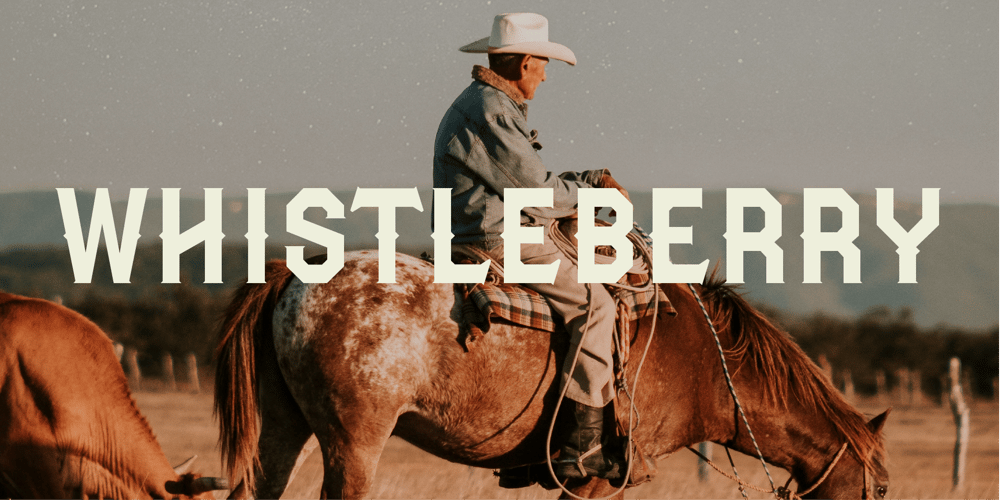
Whistleberry
Whistleberry font
Whistleberry Font Family was designed by Matt Heximer and published by 10four. Whistleberry contains 2 styles and family package options. Originally given life as a wordmark for the Alt-Country band Woodshed Supply Company, the Whistleberry typeface evolved from a few simple letterforms inspired by early 20th Century signage, into a surprisingly functional typeface. With plenty of rustic charm, a robust glyph set, and a variety of alternate characters, Whistleberry will add flare and appeal to your work.Whistleberry comes in two weights; a modest Regular and a beefy Bold